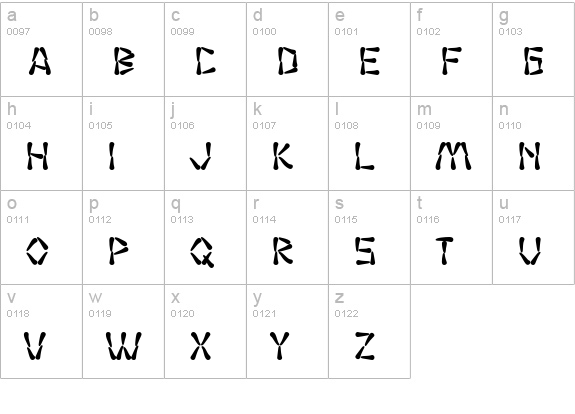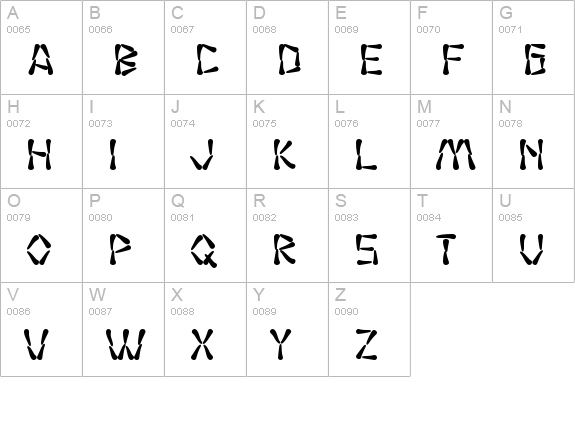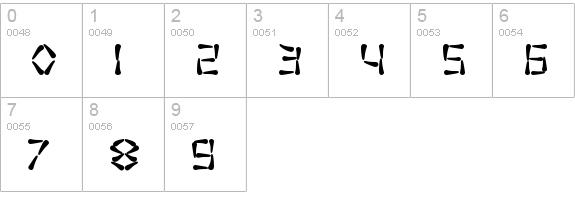
SF Wasabi Bold Font Details
SF Wasabi Bold is a strong, high-contrast variant in the SF typeface family \xE2\x80\x94 well suited to headlines, attention-grabbing titles, and strong calls-to-action.
SF Wasabi Bold is a striking and dynamic font that is sure to make a bold statement in any design project. This font exudes a sense of power and confidence, with its thick and strong letterforms that demand attention. The bold and robust nature of this font makes it perfect for headlines, logos, and any other design element that needs to stand out. With its sleek and modern aesthetic, SF Wasabi Bold is a versatile font that can be used in a variety of design styles. Whether you're creating a futuristic sci-fi poster or a sleek and contemporary website, this font will add a touch of sophistication and style. Its clean and legible letterforms ensure that your message will be easily understood by your audience. One of the best things about SF Wasabi Bold is that it is freely available to download at FontsMarket.com. This means that you can easily access this font and start using it in your designs without any cost. This makes SF Wasabi Bold a great option for designers on a budget or those who simply appreciate the value of a free resource. So why wait? Download SF Wasabi Bold today and elevate your designs to new heights. Whether you're a seasoned designer or just starting out, this font will undoubtedly add a touch of boldness and impact to your projects. Don't miss out on the opportunity to enhance your designs with this powerful and stylish font. Get SF Wasabi Bold now and let your creativity soar.